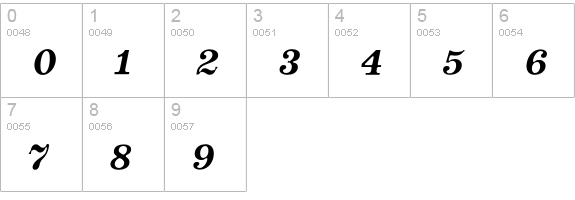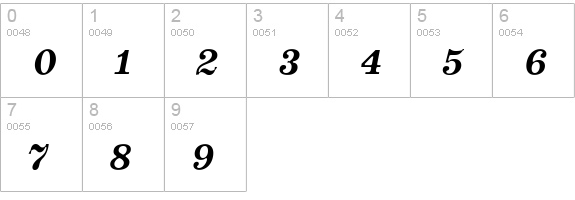
Oxtail Bold Italic Font Details
Oxtail Bold Italic is a strong, high-contrast, italic variant in the Oxtail typeface family \xE2\x80\x94 well suited to headlines, attention-grabbing titles, and strong calls-to-action.
Introducing Oxtail Bold Italic font, a dynamic and eye-catching typeface that exudes a sense of strength and sophistication. The bold and italic design of this font adds a touch of flair and uniqueness to any project, making it perfect for headlines, branding, and graphic design. What sets Oxtail Bold Italic font apart is not only its striking appearance but also its versatility. Whether you're looking to make a statement or add a touch of elegance to your designs, this font has you covered. And the best part? Oxtail Bold Italic font is available for free download at FontsMarket.com. So go ahead and elevate your typography game with this stunning typeface without breaking the bank. Download Oxtail Bold Italic font today and unleash your creativity!